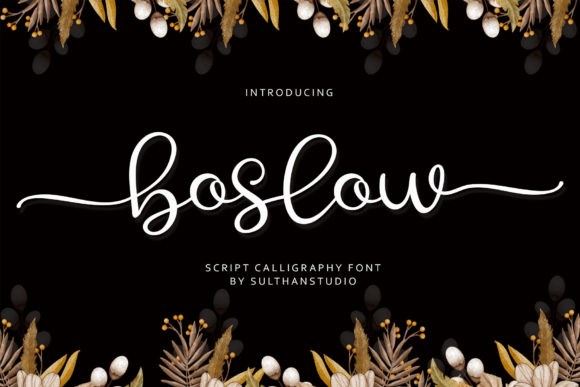
Discover Boslow Font: The Vintage Charm for Your Designs
Journey into the world of timeless elegance with Boslow Font, a captivating script font that exudes vintage charm and playful sophistication. Step back in time and embrace the allure of classic typography with this enchanting font family. Let your imagination run wild as you explore the endless creative possibilities that await.
With its delicate strokes and graceful curves, Boslow Font adds a touch of nostalgia to any design project. Its playful characters seem to dance along the baseline, creating a sense of movement and energy that draws the eye. Each letterform is carefully crafted to embody the essence of vintage design, with subtle flourishes and swashes that add a touch of playful elegance.
Harness the Power of Vintage Aesthetics
Boslow Font is your gateway to a world of vintage aesthetics, where the past meets the present in perfect harmony. Whether you're designing logos, branding materials, invitations, or social media graphics, this font family will infuse your designs with a timeless appeal. Its versatility knows no bounds, making it the perfect choice for a wide range of creative projects.
Unlock a World of Creative Possibilities
Unlock the creative potential within you as you harness the power of Boslow Font. Dive into the world of vintage typography and let your imagination soar. From elegant wedding invitations to eye-catching social media posts, Boslow Font is your trusted companion on your creative journey. Experience the joy of crafting designs that resonate with your audience and leave a lasting impression.